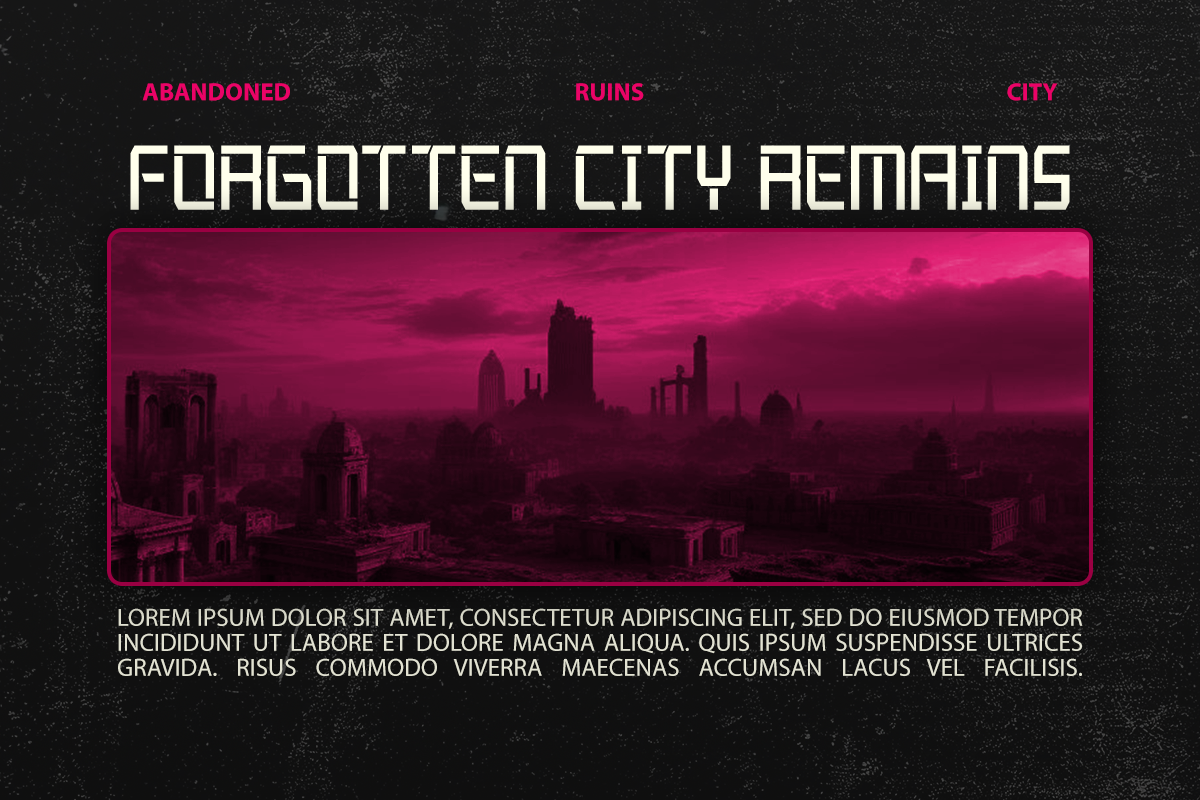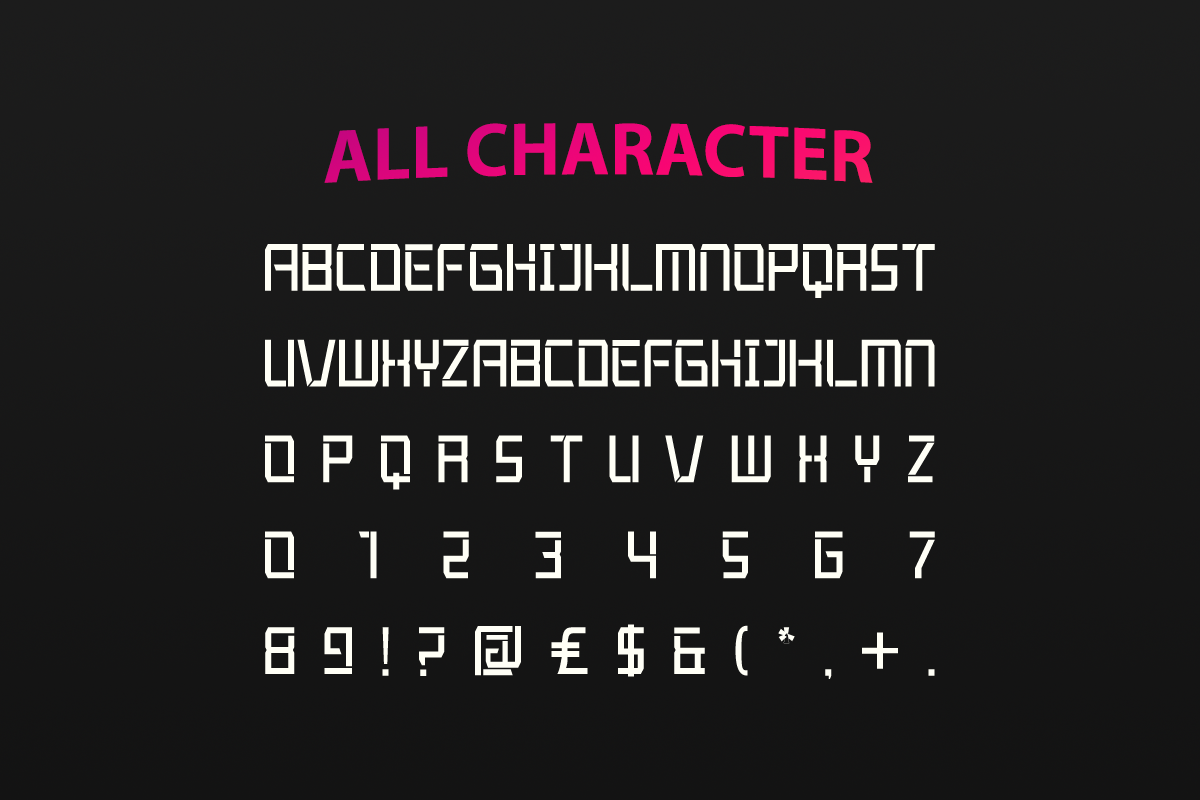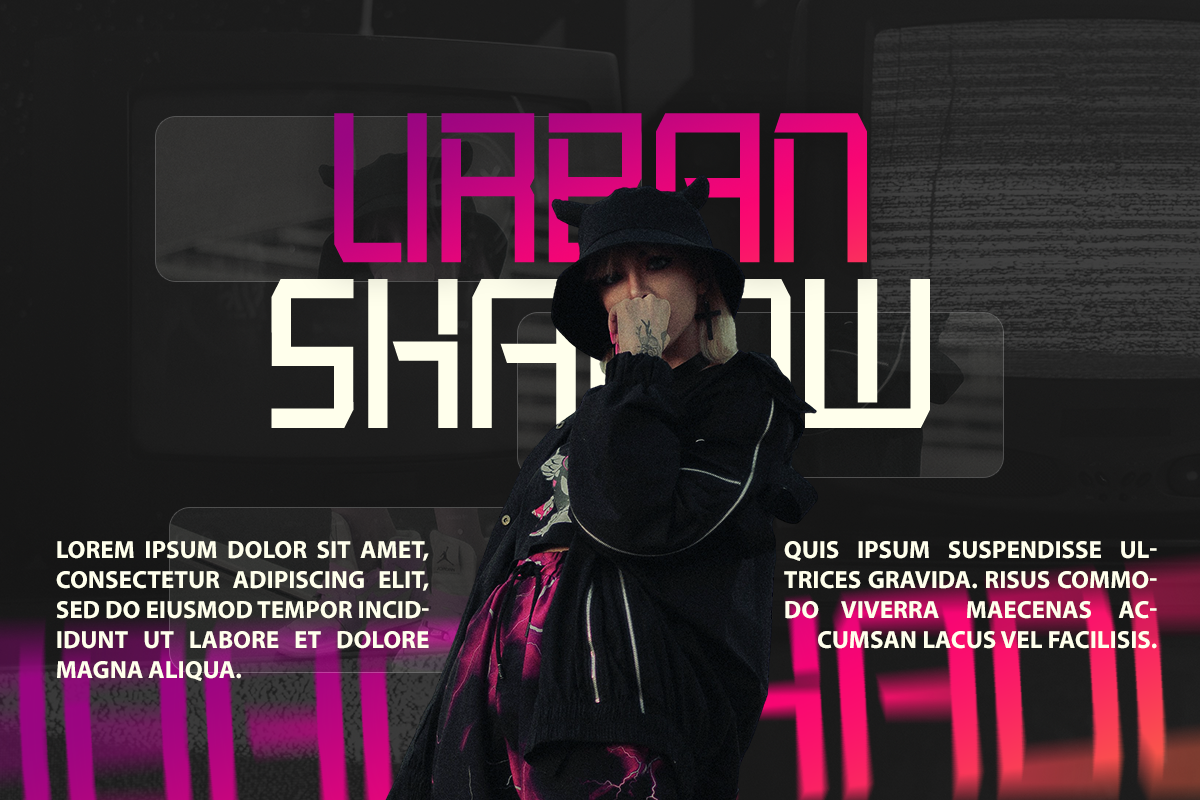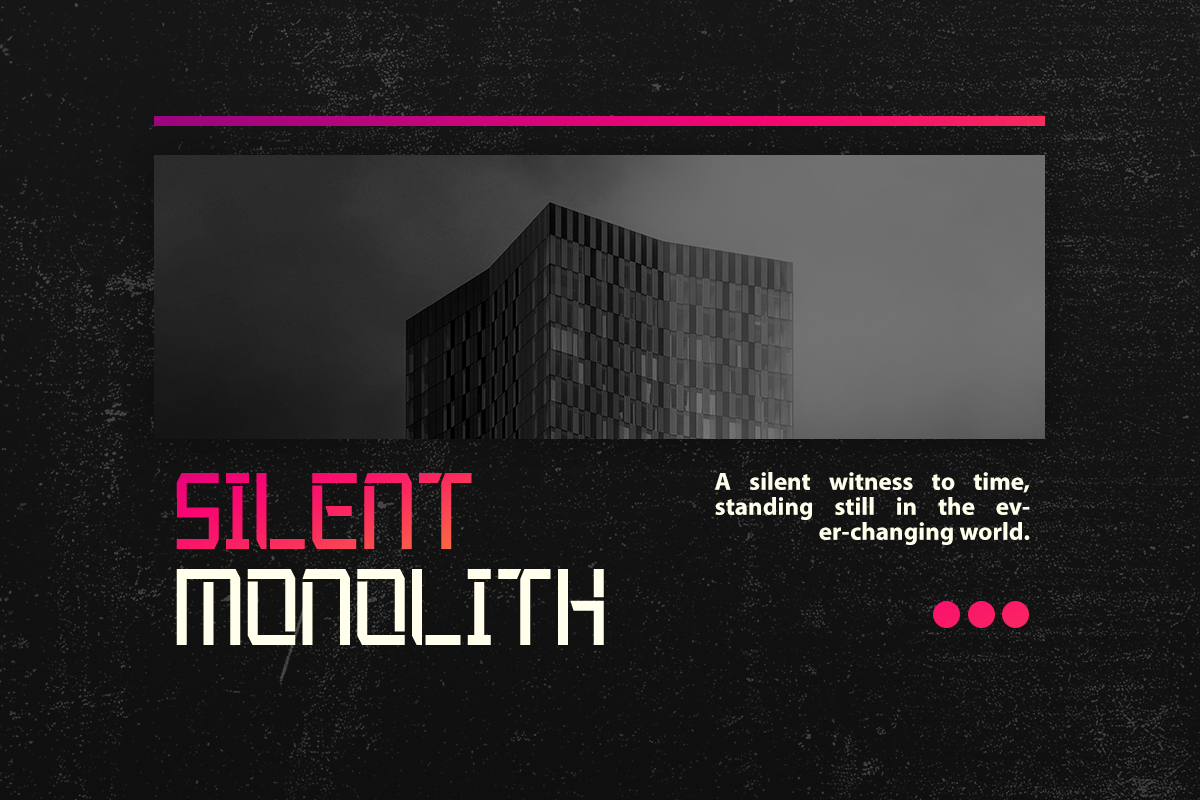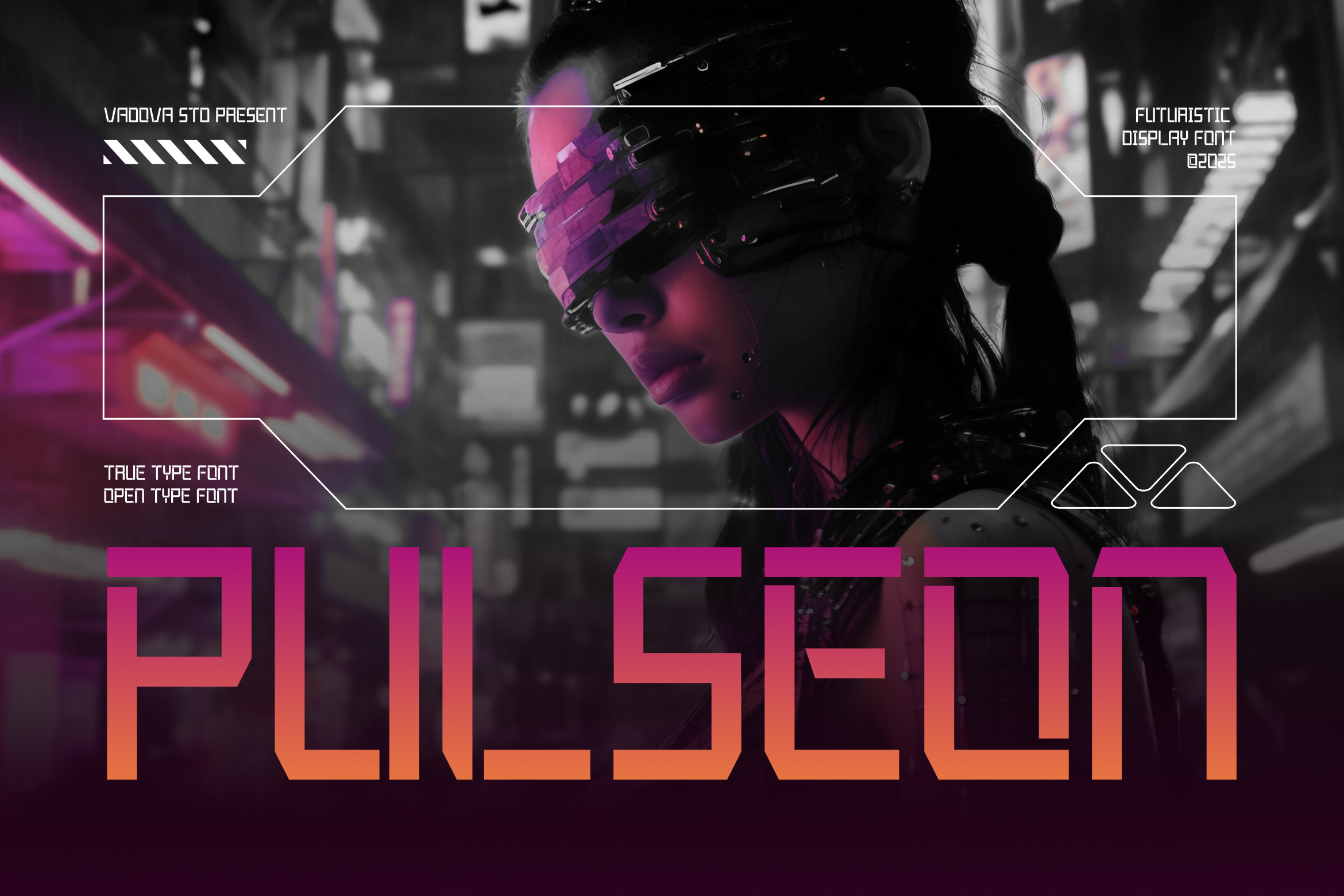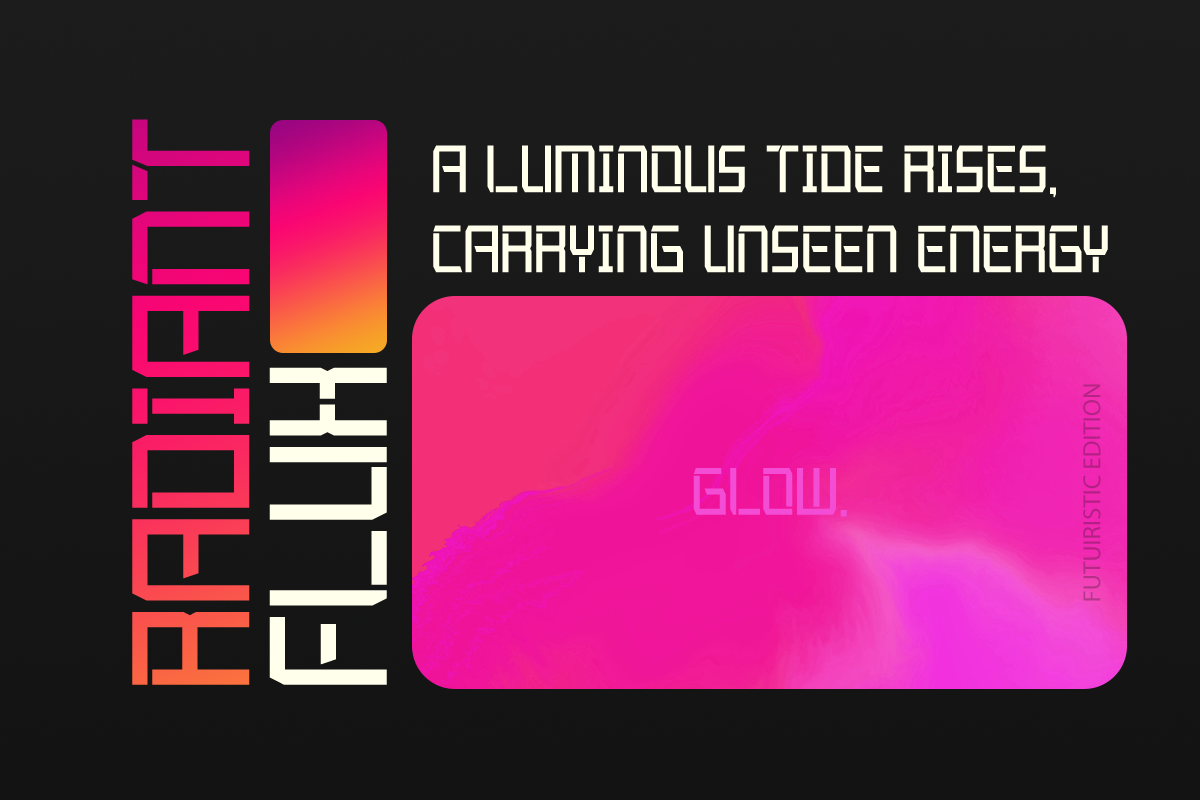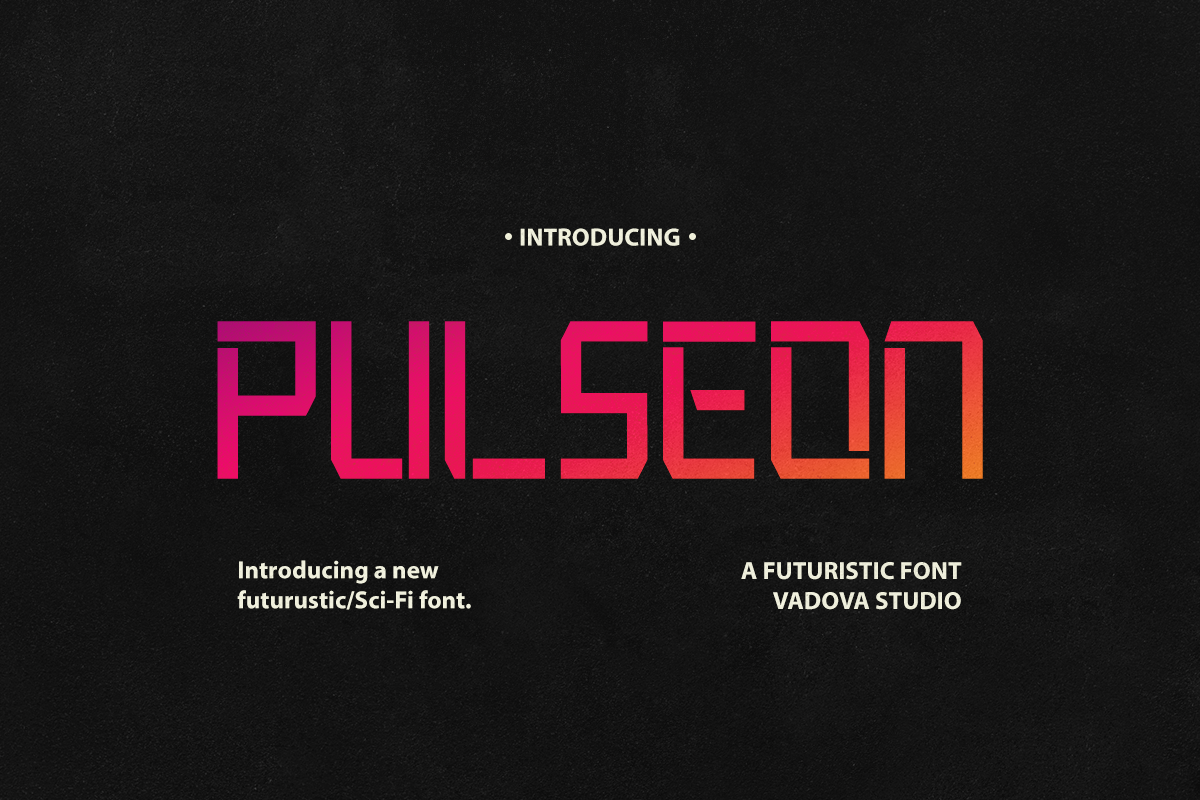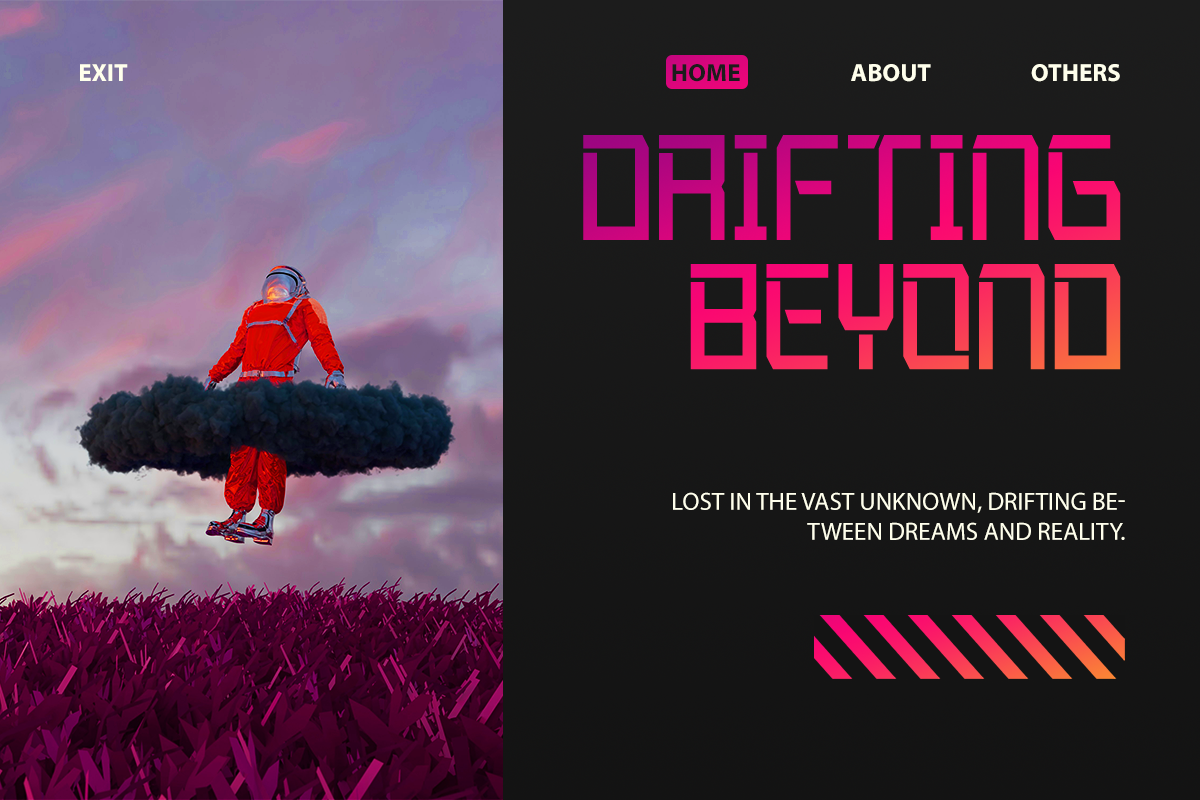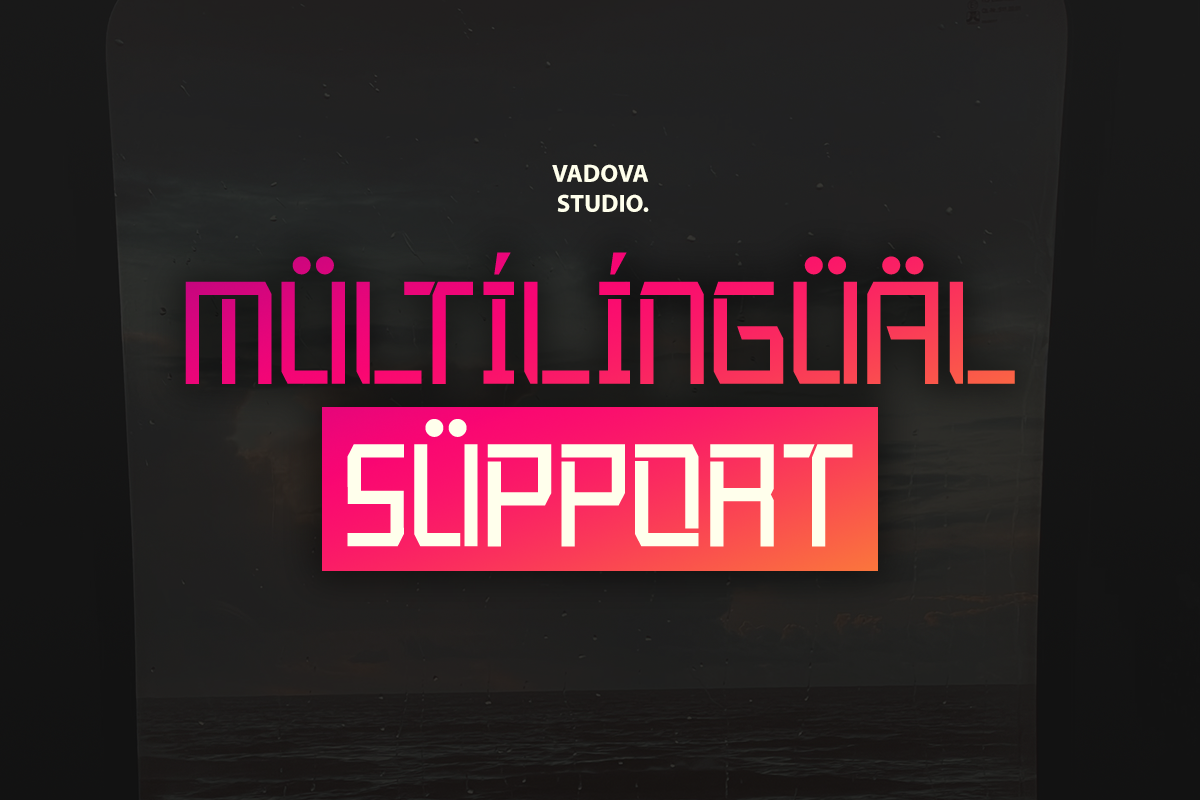
Pulseon Futuristic Display Font
Pulseon is a bold futuristic display font designed for digital-forward creatives. This typeface features sharp angular cuts, modular construction, and high-tech aesthetics that evoke a cyberpunk and sci-fi tone. The set includes uppercase alphabets, multilingual support, numerals, and essential symbols in both TTF and OTF formats.
Pulseon is ideal for branding and display applications in futuristic, digital, or technology-focused design projects. Whether for indie games, VR interfaces, movie titles, or music visuals, its sleek sci-fi look enhances immersive narratives. Its readability and aggressive styling make it suitable for creative studios, digital product marketing, cyberpunk event visuals, and more.
- Futuristic angular design inspired by sci-fi and tech aesthetics
- Modular letterforms with squared curves and sharp terminals
- Geometric construction for strong visual rhythm and clarity
- Gradient-friendly structure ideal for glowing, cyberpunk effects
- Multilingual support with distinctive, high-tech character forms
- Tech brand logos with a bold futuristic vibe
- Sci-fi posters, titles, and cinematic visuals
- Cyberpunk game interfaces and UI/UX design
- Music cover art for electronic or synthwave genres
- Futuristic packaging and tech startup branding